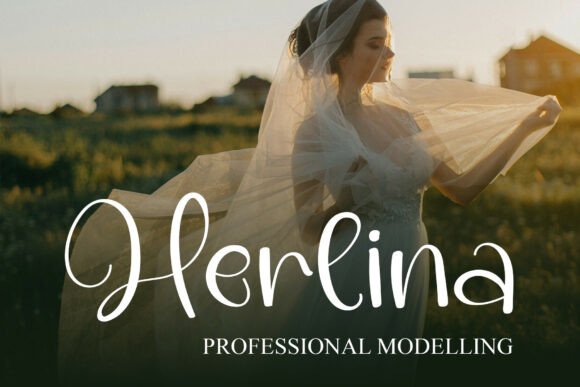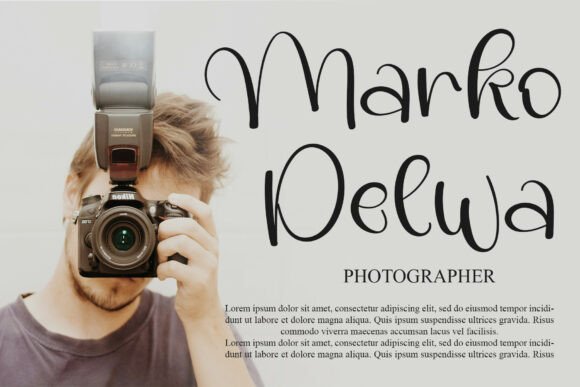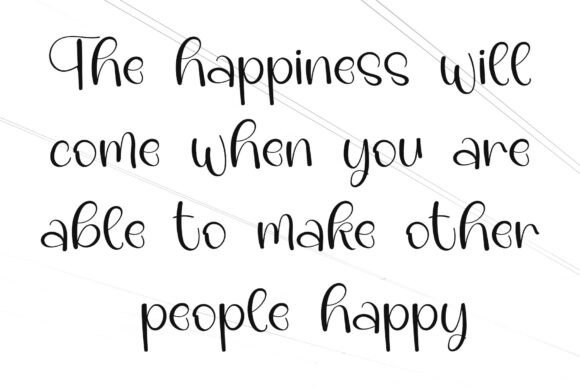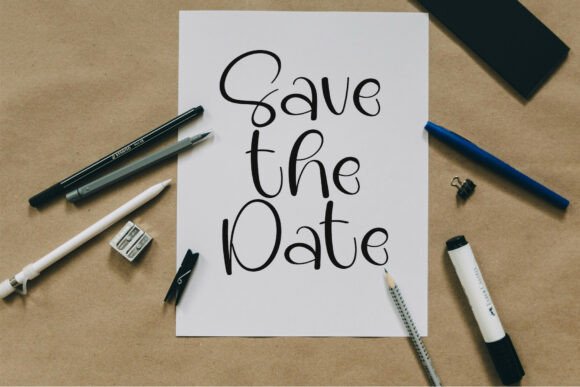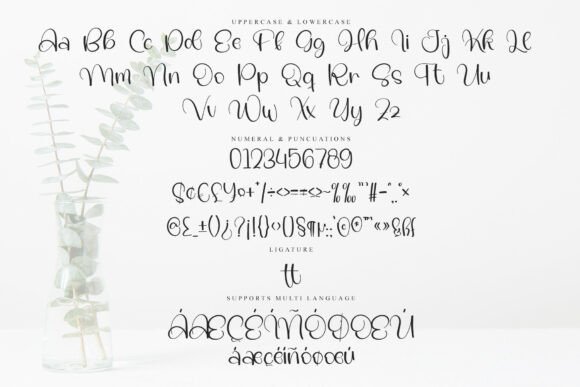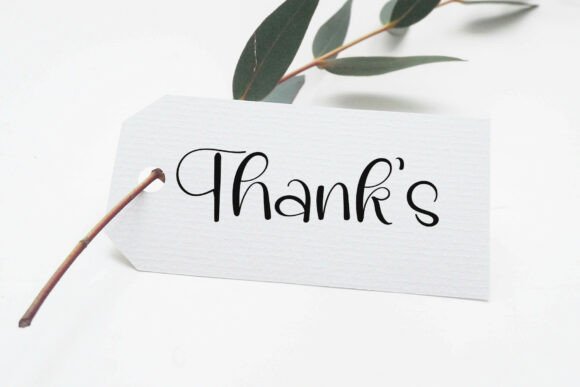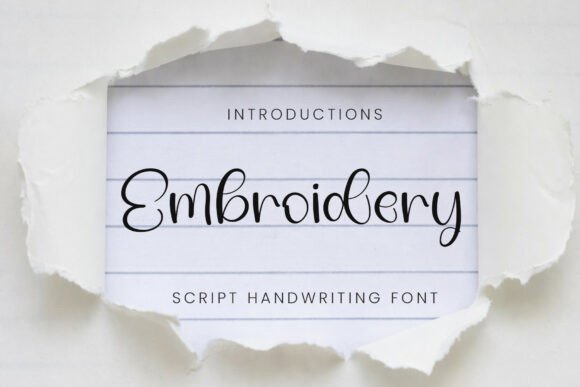
Embroidery Font: A Delicate and Airy Script for Creative Projects
Are you looking for a font that can add a touch of elegance and sophistication to your creative projects? Look no further than the Embroidery Font, a beautiful script handwriting font designed to bring a hand-stitched, artisanal feel to your designs. With its fine, monolinear strokes and natural, upright posture, this font is perfect for crafters, designers, and anyone looking to add a personal touch to their work.
Characteristics of Embroidery Font
The Embroidery Font is characterized by its tall, looping ascenders and a rhythmic visual flow that mimics the gentle curves of needlework or ink work on paper. The font features expansive character spacing, which gives it a airy and delicate feel. The monolinear strokes are fine and precise, giving the font a sense of elegance and refinement.
One of the standout features of the Embroidery Font is its natural, upright posture. Unlike some script fonts that can look sloppy or overly casual, the Embroidery Font has a poised and confident air that makes it perfect for a wide range of applications. Whether you’re designing boutique gift labels, sentimental greeting cards, or personalized wedding stationery, this font is sure to impress.
Uses for Embroidery Font
So, what can you use the Embroidery Font for? The possibilities are endless! Here are a few ideas to get you started:
- Boutique gift labels: Add a touch of elegance to your gift labels with the Embroidery Font. Perfect for small businesses, craft fairs, or special occasions.
- Sentimental greeting cards: Create heartfelt greeting cards for special occasions like birthdays, weddings, or anniversaries.
- Nursery wall art: Add a touch of whimsy and charm to nursery wall art with the Embroidery Font. Perfect for baby quotes, nursery rhymes, or personalized messages.
- Personalized wedding stationery: Make your wedding stationery truly special with the Embroidery Font. Perfect for wedding invitations, save-the-dates, or thank-you cards.
Why Choose Embroidery Font?
So, why choose the Embroidery Font over other script fonts? Here are a few reasons:
- Unique and elegant design: The Embroidery Font has a unique and elegant design that will set your work apart from the crowd.
- Versatile: The font is versatile and can be used for a wide range of applications, from digital designs to print materials.
- Easy to read: Despite its delicate and airy feel, the Embroidery Font is easy to read and understand, making it perfect for body text or headlines.
- Hand-stitched feel: The font’s hand-stitched feel adds a personal touch to your designs, making them more relatable and engaging.
Tips for Using Embroidery Font
Here are a few tips for using the Embroidery Font effectively:
- Use it sparingly: While the Embroidery Font is beautiful, it can be overwhelming if used too much. Use it sparingly to add a touch of elegance to your designs.
- Pair it with contrasting fonts: Pair the Embroidery Font with contrasting fonts to create visual interest and hierarchy.
- Experiment with colors: The Embroidery Font looks beautiful in a range of colors, from soft pastels to rich jewel tones. Experiment with different colors to find the perfect fit for your design.
In conclusion, the Embroidery Font is a beautiful and elegant script handwriting font that is perfect for crafters, designers, and anyone looking to add a personal touch to their work. With its fine, monolinear strokes, natural upright posture, and expansive character spacing, this font is sure to impress. Whether you’re designing boutique gift labels, sentimental greeting cards, or personalized wedding stationery, the Embroidery Font is a great choice.